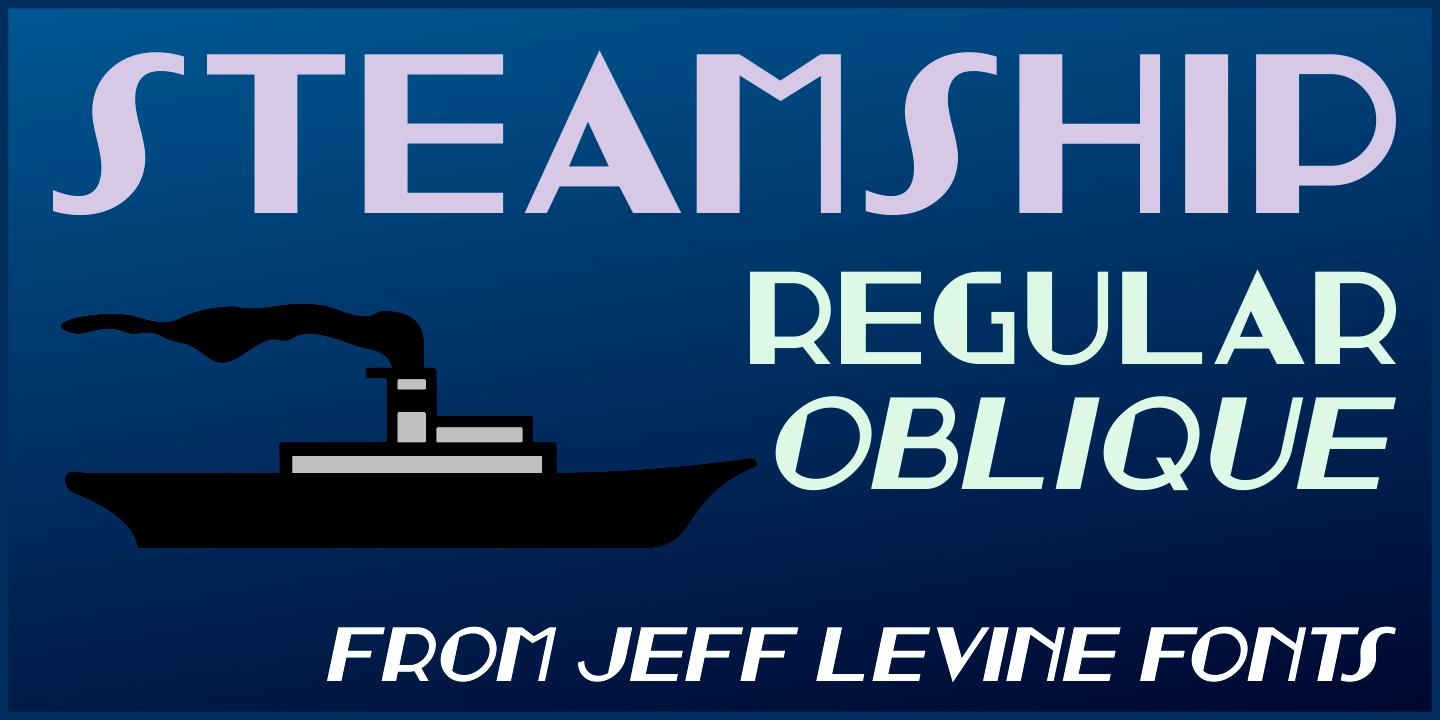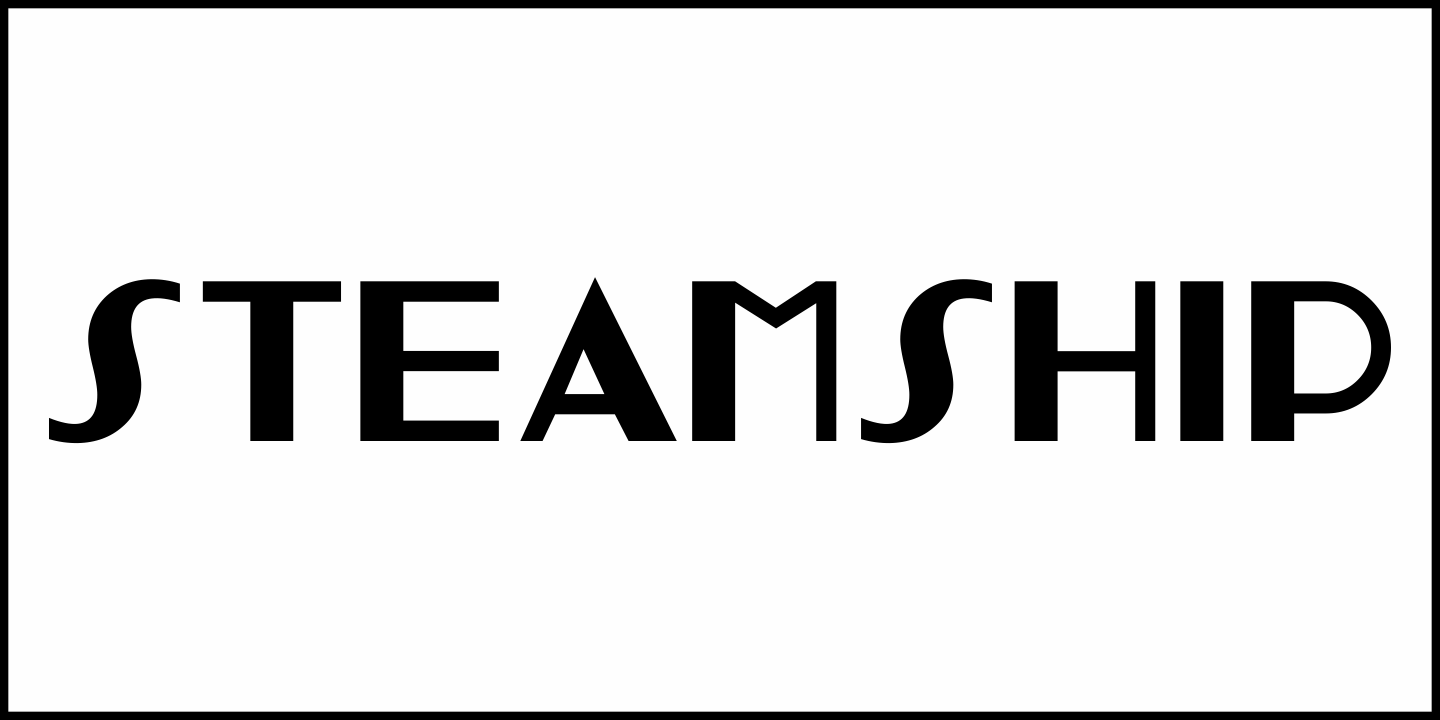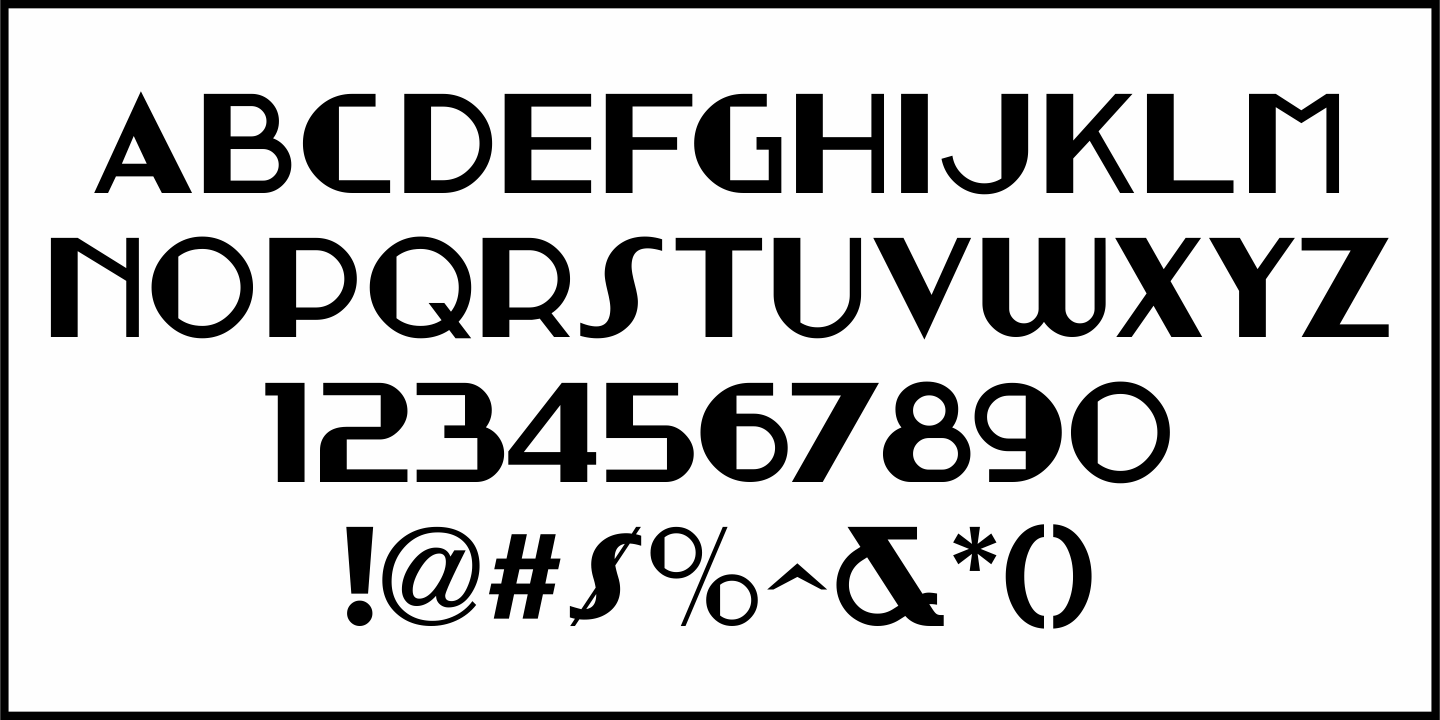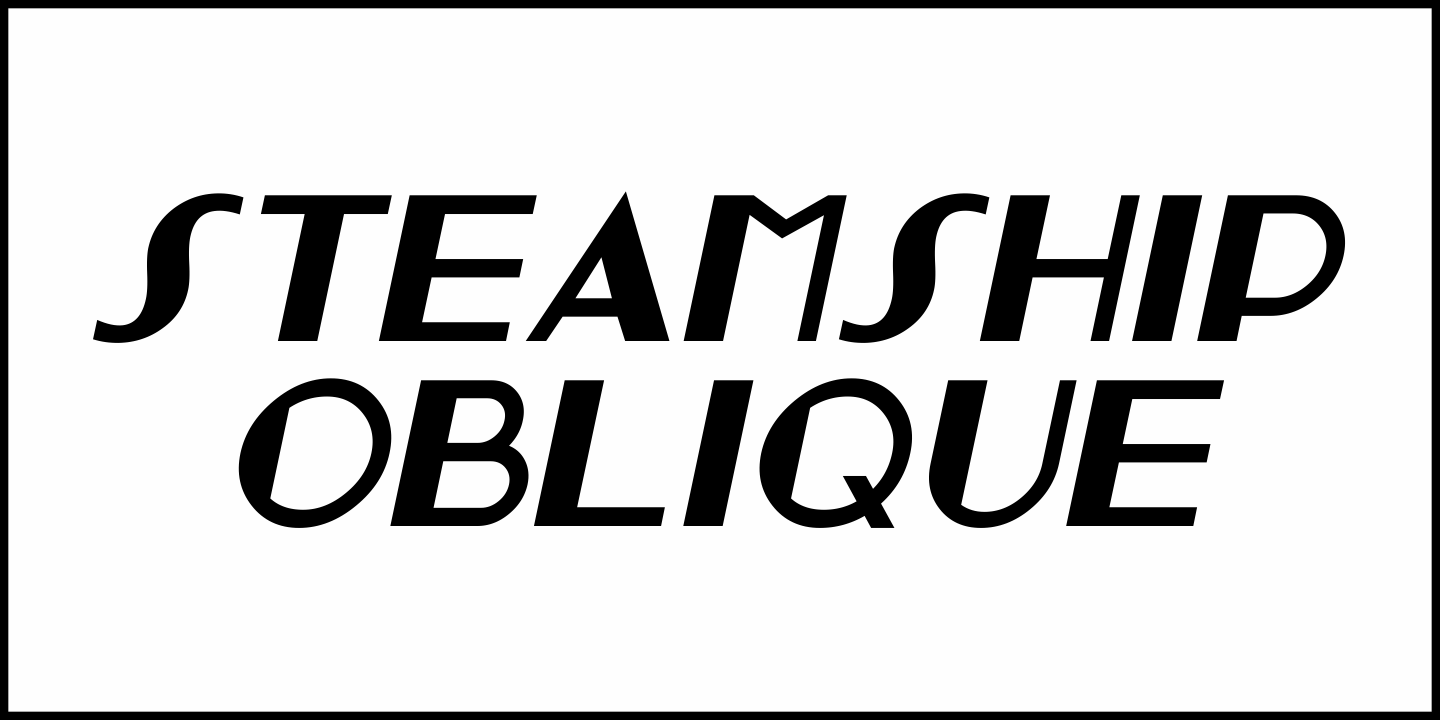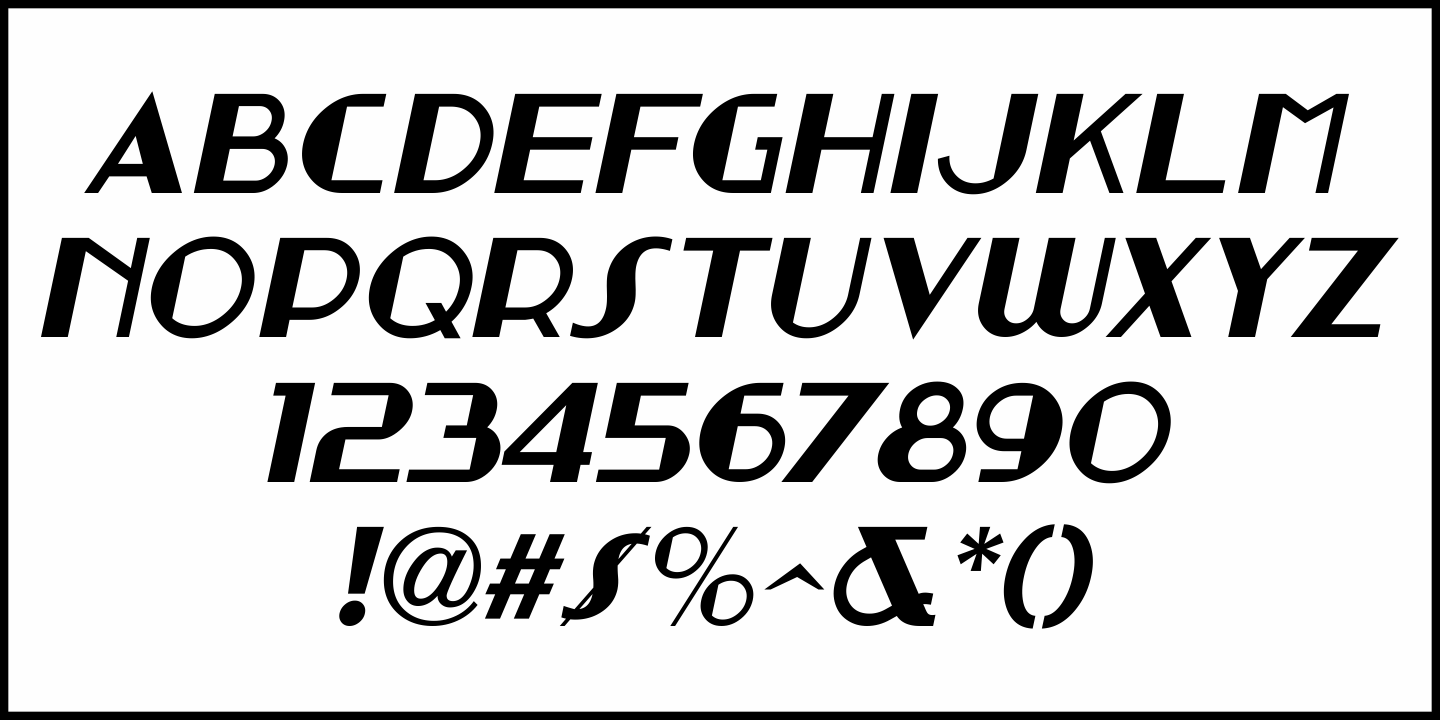
Steamship
While viewing a YouTube video of film footage in and around New York in the mid-1930s, one scene showed some people “window shopping” by the storefront office of the French Line, an international steamship service.
A screen capture allowed the storefront sign to be recreated as the digital typeface Steamship JNL, which is available in both regular and oblique versions.